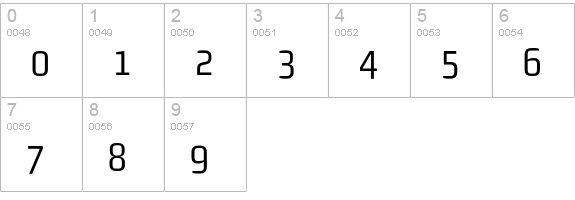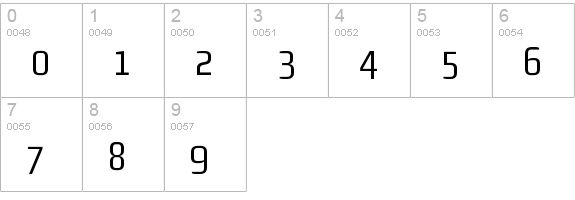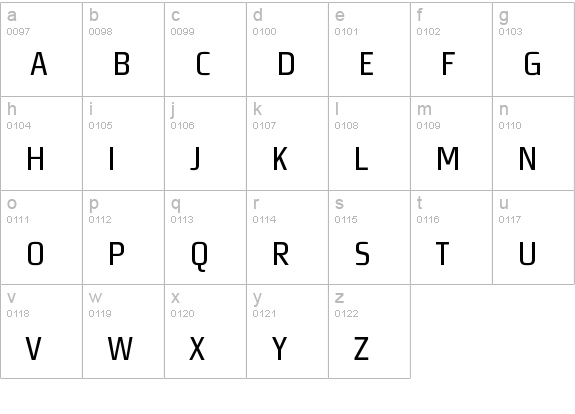
MorganSansCond RegularExpert Font Details
Introducing MorganSansCond RegularExpert font, a versatile and modern typeface designed to elevate your designs to the next level. With its clean lines and contemporary appeal, this font is perfect for a wide range of projects, from branding to editorial design. What sets MorganSansCond RegularExpert apart is its exceptional legibility and readability, making it a great choice for both print and digital applications. Whether you're designing a logo, creating a poster, or crafting a website, this font will ensure your message is conveyed with clarity and style. Best of all, MorganSansCond RegularExpert is available for free download at FontsMarket.com. With just a few clicks, you can add this stunning font to your collection and start using it in your projects right away. Don't miss out on the opportunity to enhance your designs with this beautiful typeface. Download MorganSansCond RegularExpert today and take your creativity to new heights.